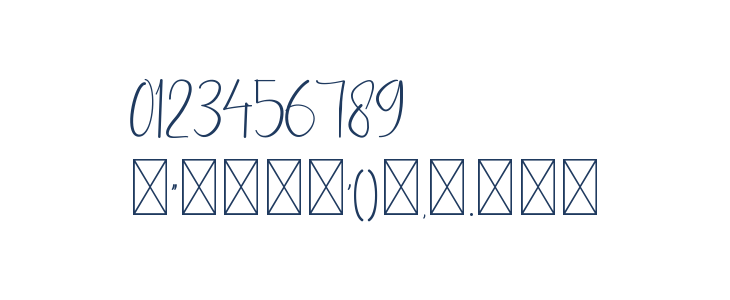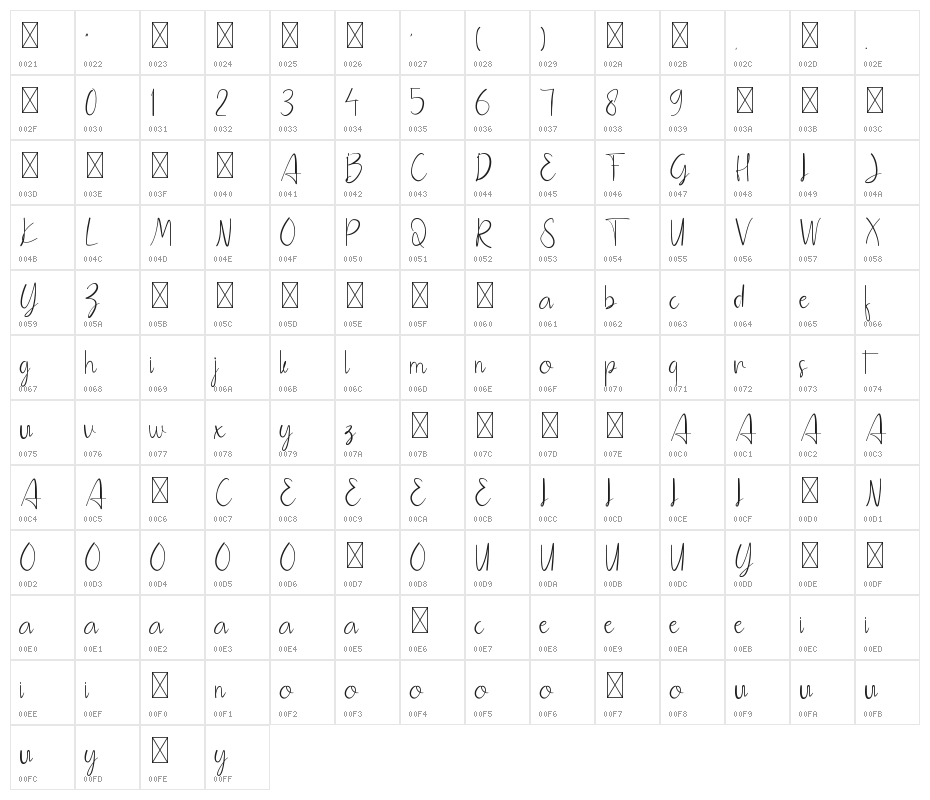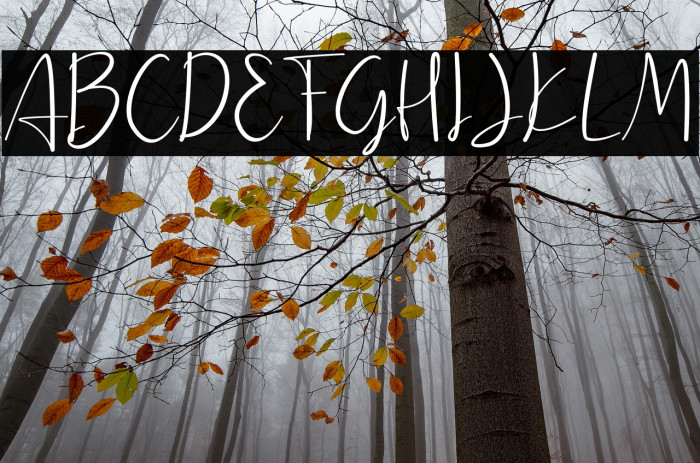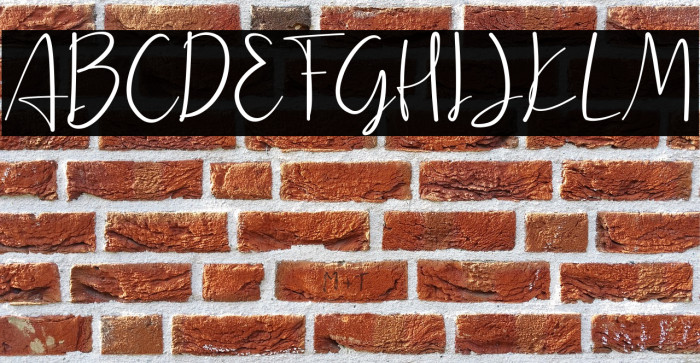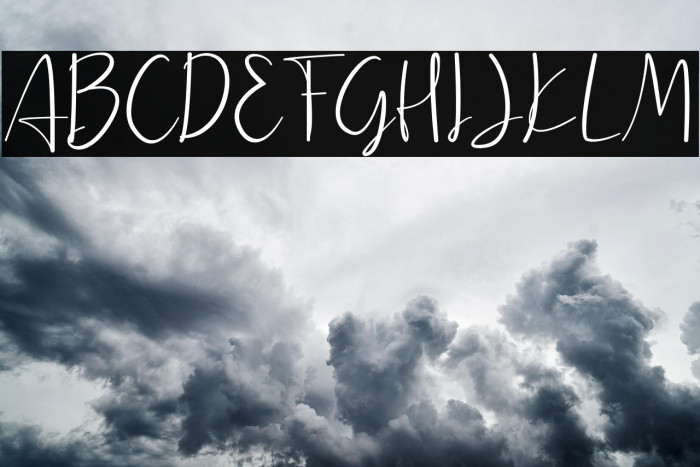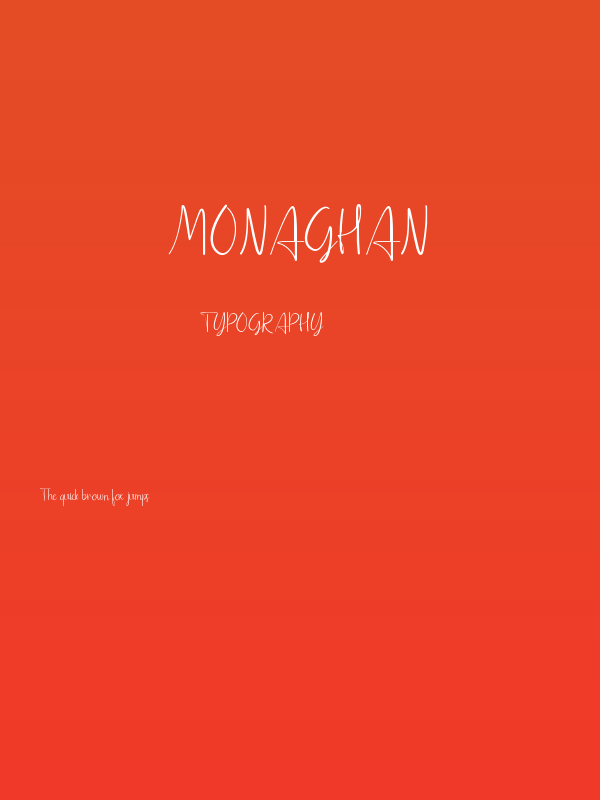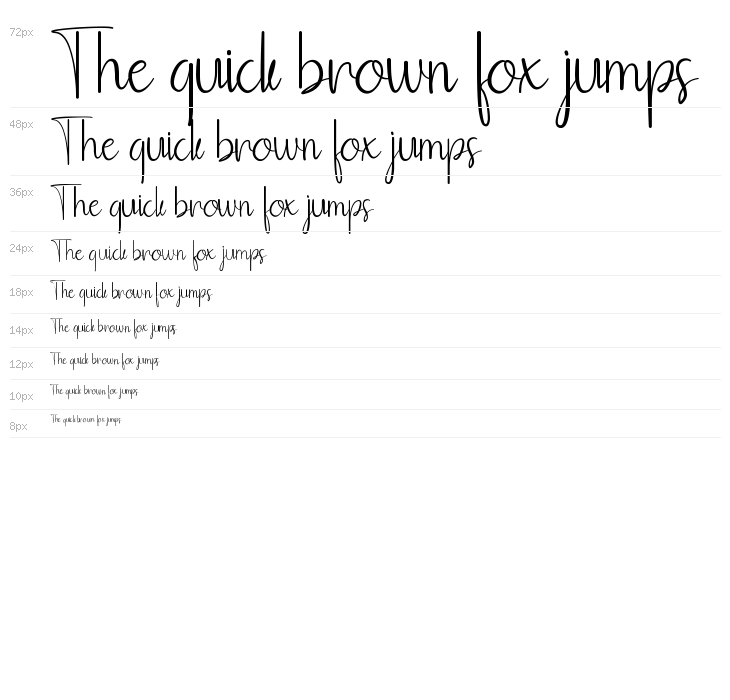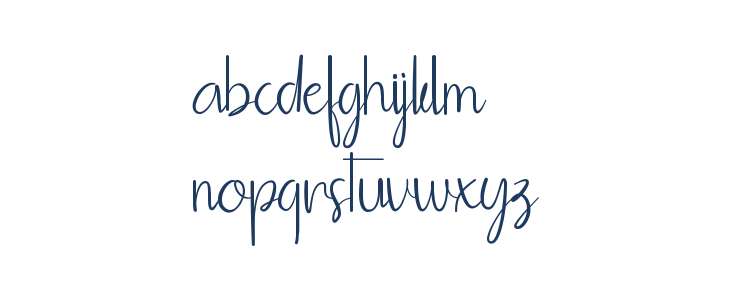
Monaghan Font
Monaghan Description
This font features a playful and whimsical script style with a handwritten appearance. The letters are characterized by their tall, narrow forms and slightly uneven strokes, giving them a casual and friendly look. The uppercase letters are distinct with unique flourishes, while the lowercase letters maintain a consistent flow. The numerals are styled to match the overall aesthetic, with curved lines and a slightly informal feel. Special characters are included, maintaining the same playful style. This font is ideal for projects that require a personal touch or a creative flair.